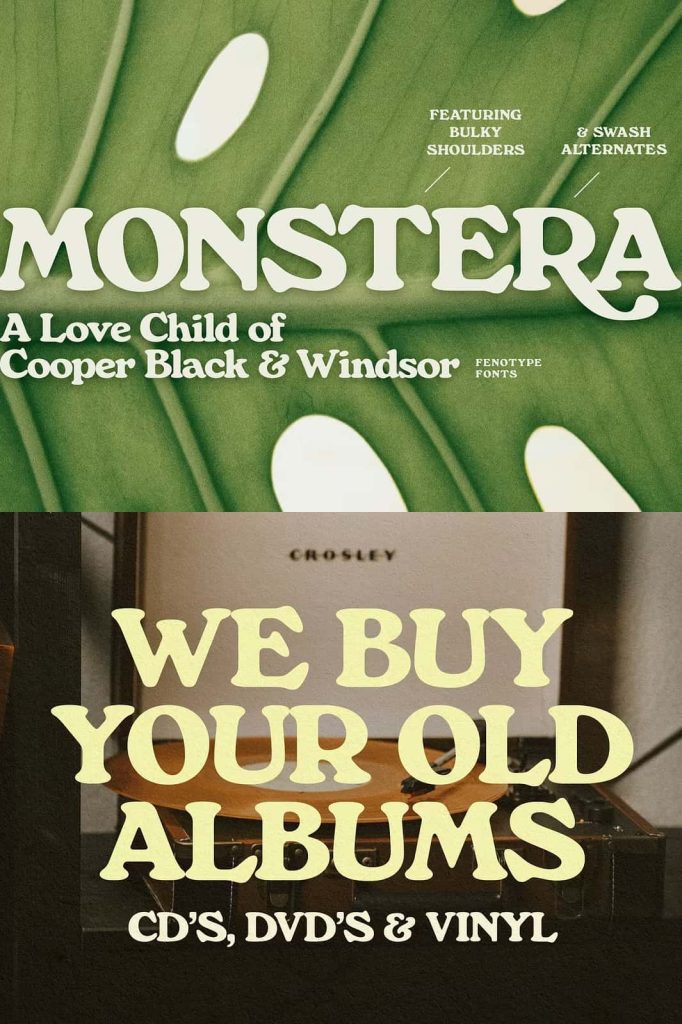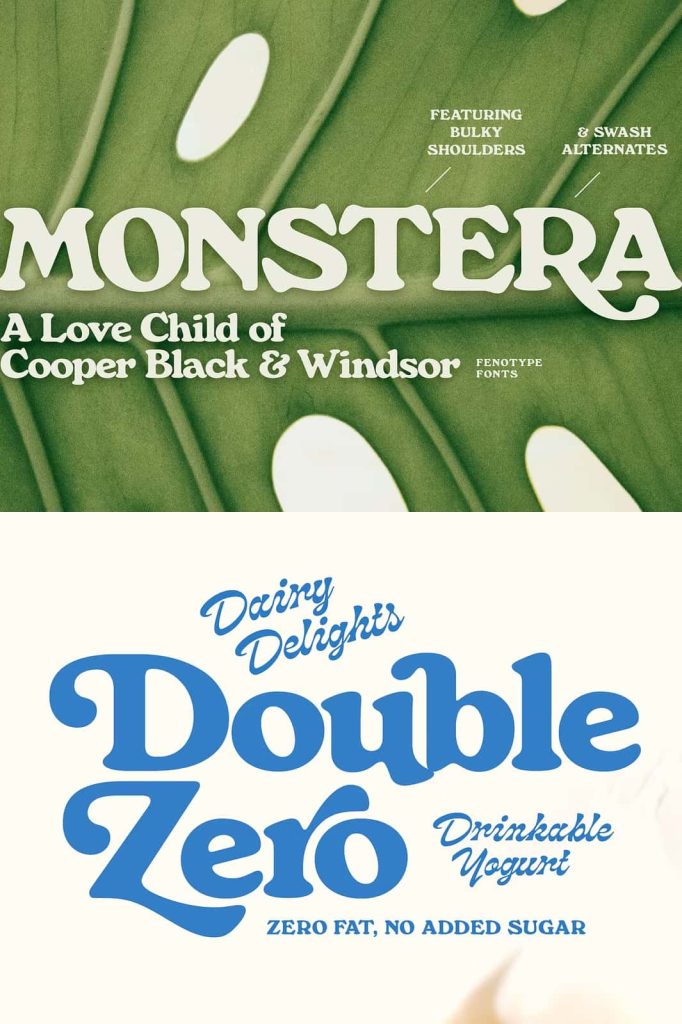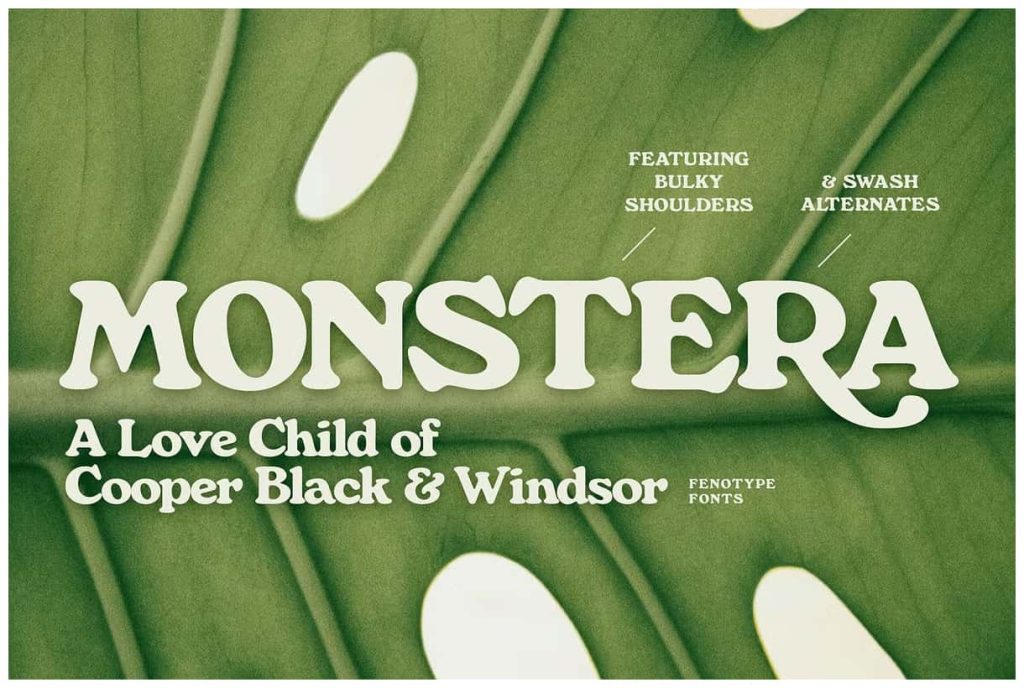
Monstera – Delicious Retro SerifleastedFebruary 14, 2025Fonts Monstera Deliciosa is a nostalgic, heavy serif font that blends the best of two iconic typefaces—Cooper Black and Windsor. Download